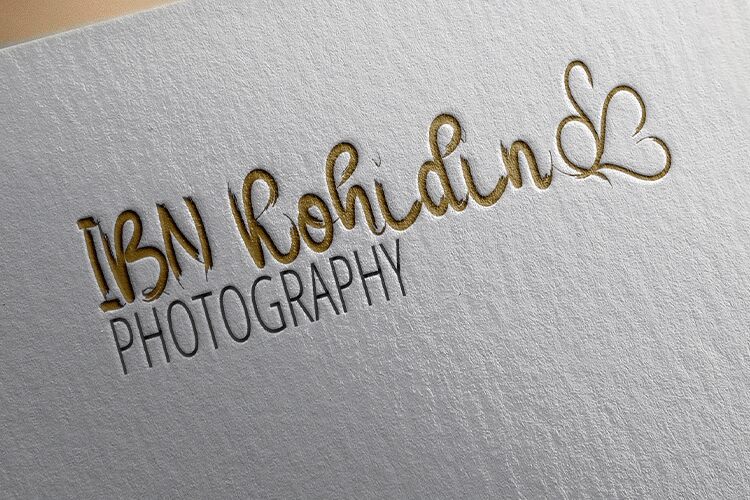
BrushmoonRegular
Introducing Brushmoon, a bold brush font created by Alghul from Hudzaifah Studio. With its unique and eye-catching strokes, Brushmoon is perfect for creative projects such as logos, posters, and social media graphics. Add a personal touch to your designs!